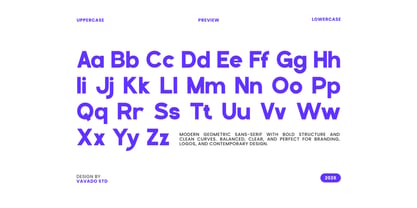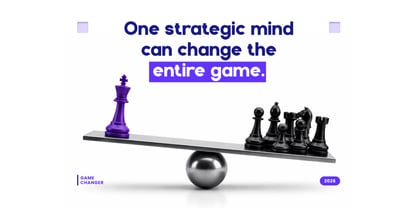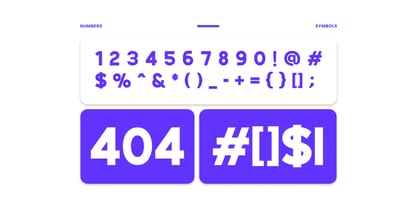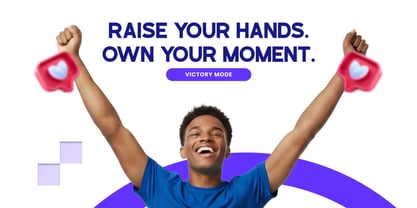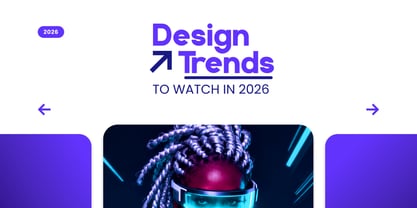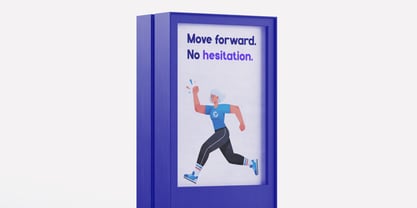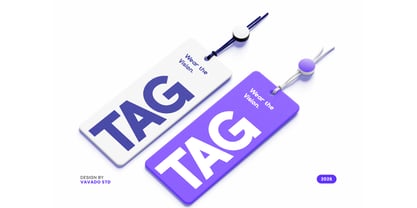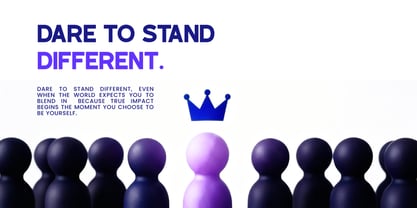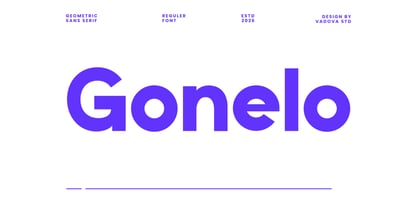
Gonelo
Gonelo is a modern geometric sans serif font designed with bold structure, clean curves, and balanced proportions. Inspired by contemporary design trends, this typeface offers a strong visual presence while maintaining clarity and readability across digital and print applications. Gonelo is highly relevant for modern digital design where clarity and visual strength are essential. The font is ideal for branding, startup identities, technology companies, UI/UX interfaces, web design, modern posters, marketing campaigns, and contemporary editorial layouts.